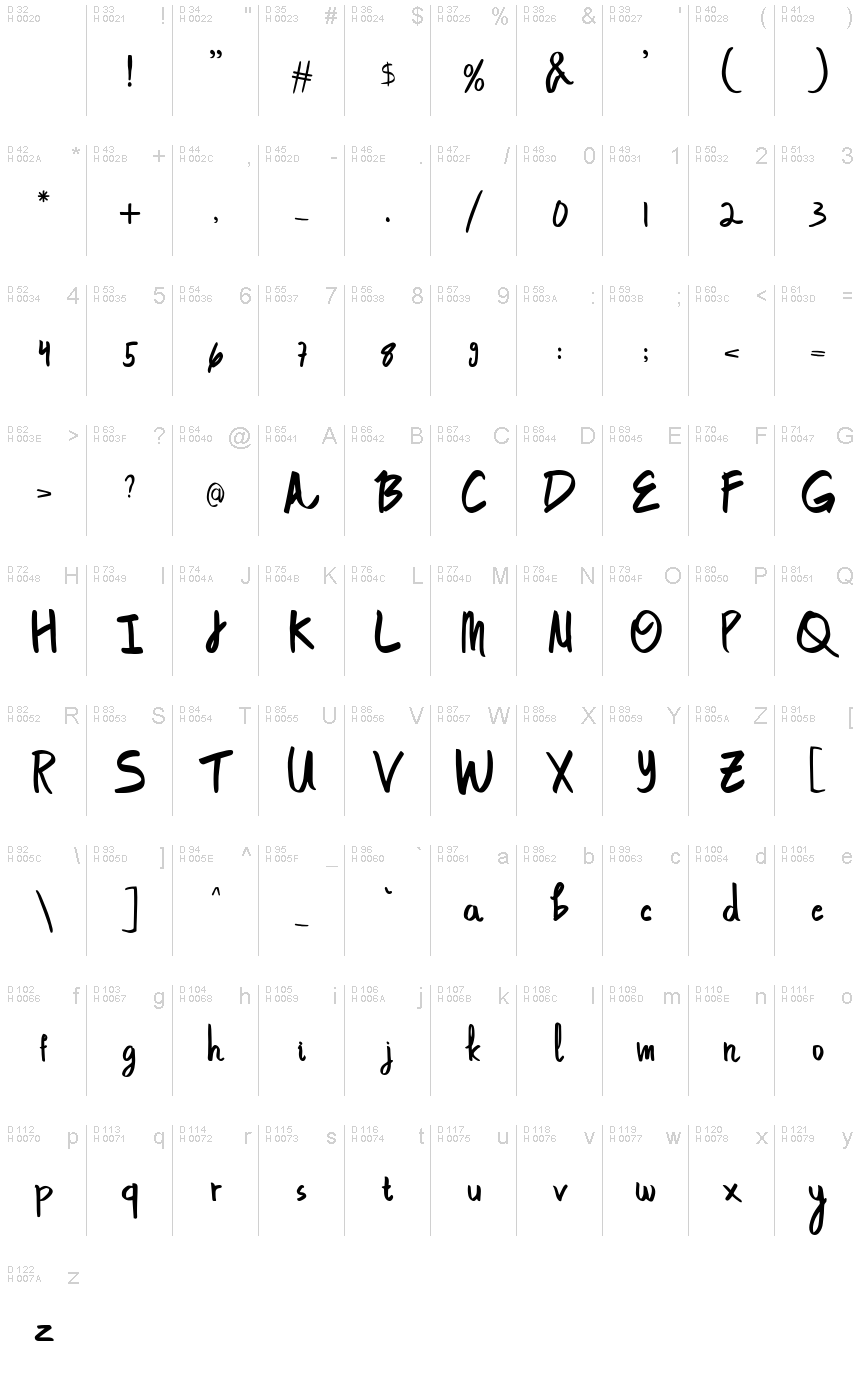
Navila Mandres Demo Regular
Navila Mandres font designed by madeDeduk is a handwritten font with casual and modern appeal. It is friendly, approachable, and has a slight artistic flair. Strokes are gentle yet vaguely precise which suggests that the writing was not random but well planned.
Free handwritten font Navila Mandres is ideal for any writing purpose that could benefit from both simplicity and exquisiteness. This includes product packaging, T-shirt decorations, invitation cards, branding projects in general as well as blogs or website titles.